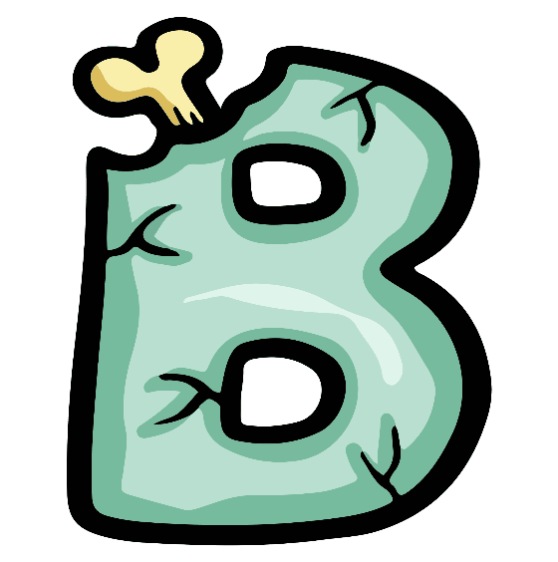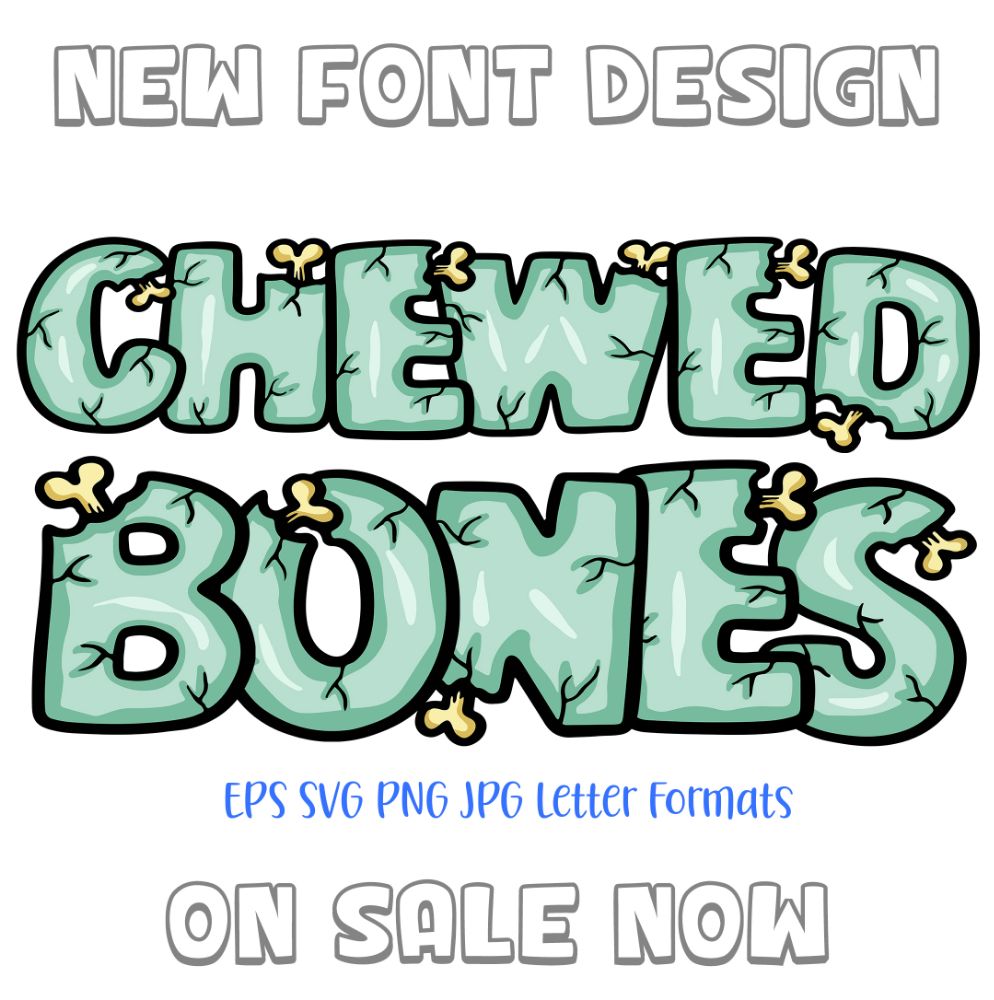
Chewed to the Bones – Halloween Font Design!
Chewed to the Bones - Halloween Font Design by Squeeb Creative
Chewed bones! Though I think you would have to be quite hungry to chew on these ones. Halloween is getting nearer and us designers love getting spooky waaay too early! Can you think of any more spooky font ideas?
Chewed to the Bones - Halloween Font Design by Squeeb Creative